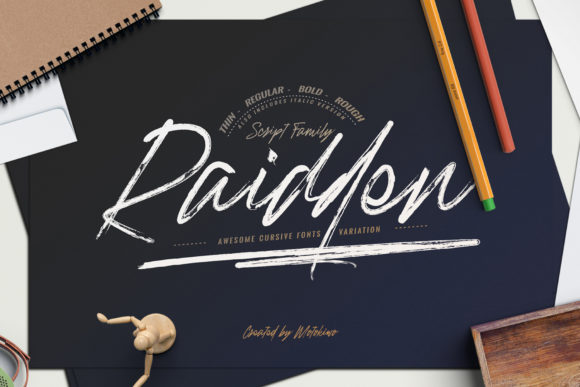
Raidden Family Font
Transport yourself to a world of elegance and creativity with the captivating Raidden Family Font. This script font is a masterpiece of digital artistry, crafted with care to evoke a contemporary flair.
Unleash your imagination and let the Raidden Family Font paint your words with a touch of sophistication. Its smooth strokes and delicate curves mimic the grace of handwritten lettering, adding a personal and authentic charm to your designs.
Step into the realm of endless possibilities with Raidden. Whether you're a designer seeking to elevate your projects, a blogger yearning for a unique voice, or a business owner looking to make a lasting impression, this font is your perfect companion.
From sleek logos and branding to enchanting wedding invitations, the Raidden Family Font is a versatile chameleon, adapting seamlessly to any project. Its versatility extends beyond aesthetics, as it effortlessly complements both digital and print media, ensuring your creations shine in any format.
Immerse yourself in the beauty of Raidden and discover a world where typography meets art. Let your creativity soar and witness the transformation of your designs into captivating masterpieces.